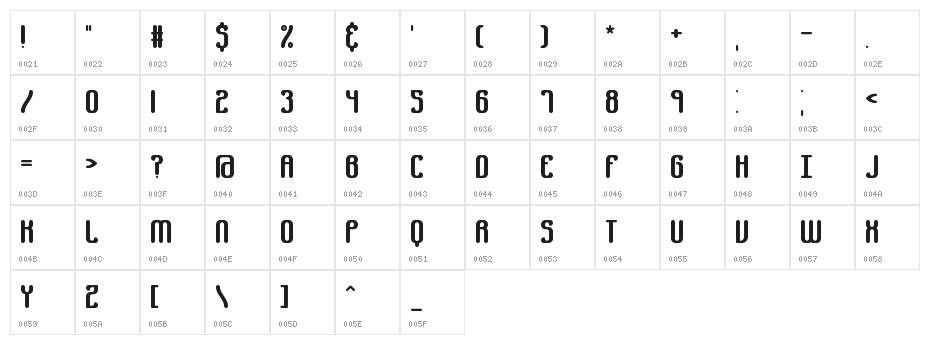
Gather BRK Font
Gather BRK Description
This font features a unique and modern design with rounded edges and consistent stroke thickness, creating a smooth and approachable appearance. The characters are uniformly structured, offering a clean and cohesive look. The uppercase and lowercase letters maintain a similar width, contributing to a balanced and harmonious aesthetic. The numerals and special characters are designed to complement the alphabet, ensuring readability and style consistency across all elements. This font is versatile, making it suitable for various applications where a contemporary and friendly vibe is desired.
| Use Case | Headlines, Logos, Digital media |
| Proposed Projects | Ideal for branding, advertising, packaging, and digital media where a modern and approachable style is needed. |